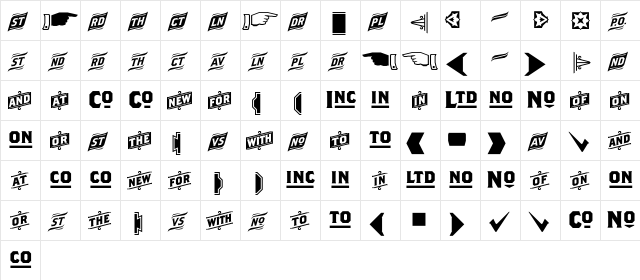
Brothers WordLogos
Design Context for Brothers Typeface
Brothers is a composed and adaptable typeface that performs quietly and consistently across a wide range of design contexts.